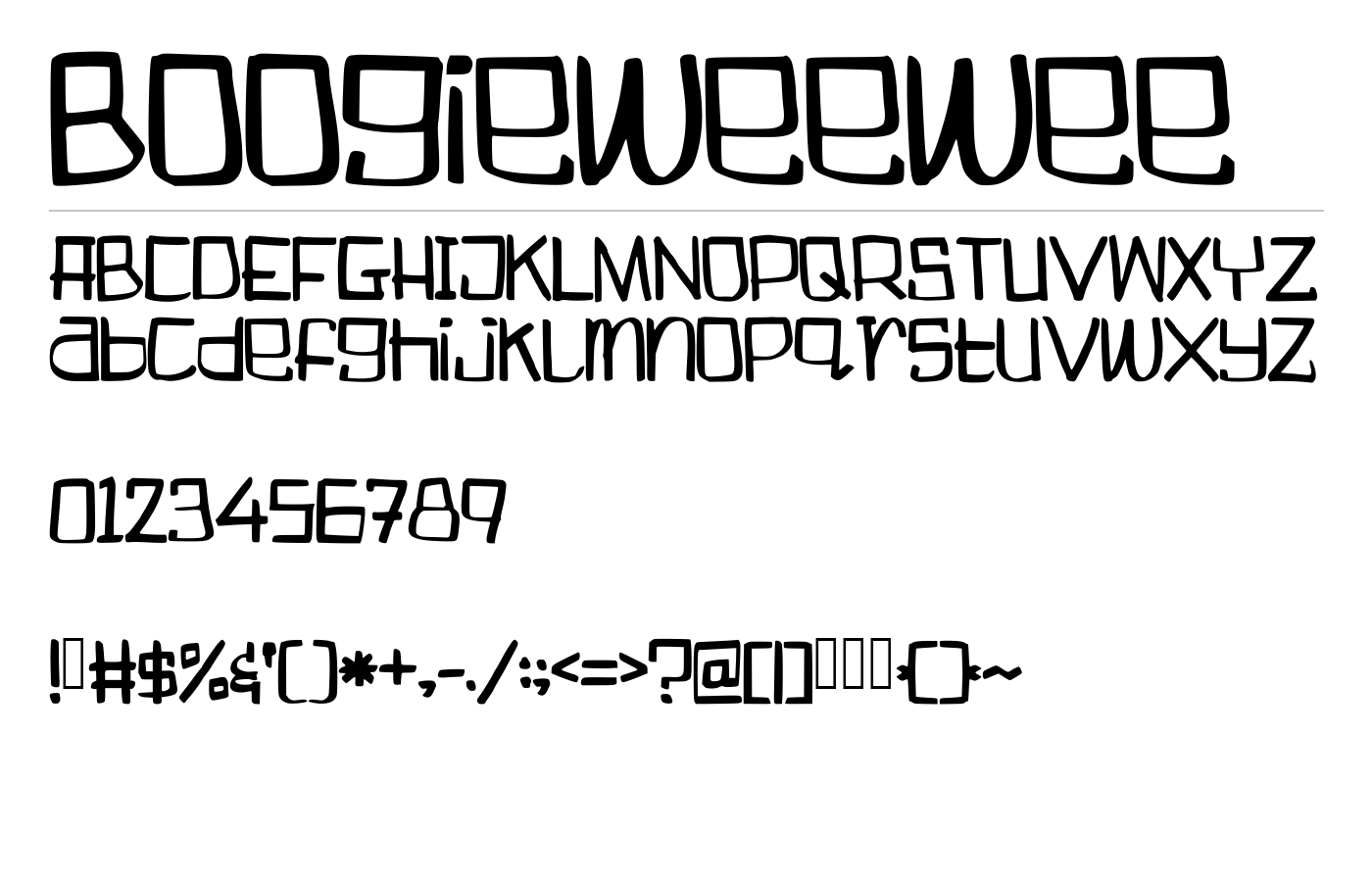
Boogieweewee is a playful, quirky sans serif font with irregular, hand-drawn letterforms that create a fun and informal vibe. Its narrow spacing and slightly wavy strokes give it a casual, whimsical feel, making it ideal for creative projects, children’s materials, or any design that benefits from a lively, approachable personality. This font works great for headlines, posters, and branding that aims to stand out with a unique, lighthearted style.
Boogieweewee Font